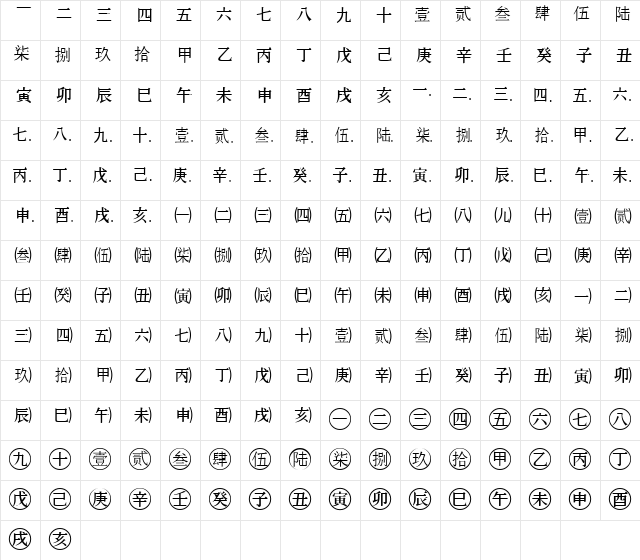
Complete Chinese Generic1 Regular glyph index. Displaying only characters natively supported by Chinese Generic1 Regular font.
Chinese Generic1 is a composed and adaptable typeface that performs quietly and consistently across a wide range of design contexts.